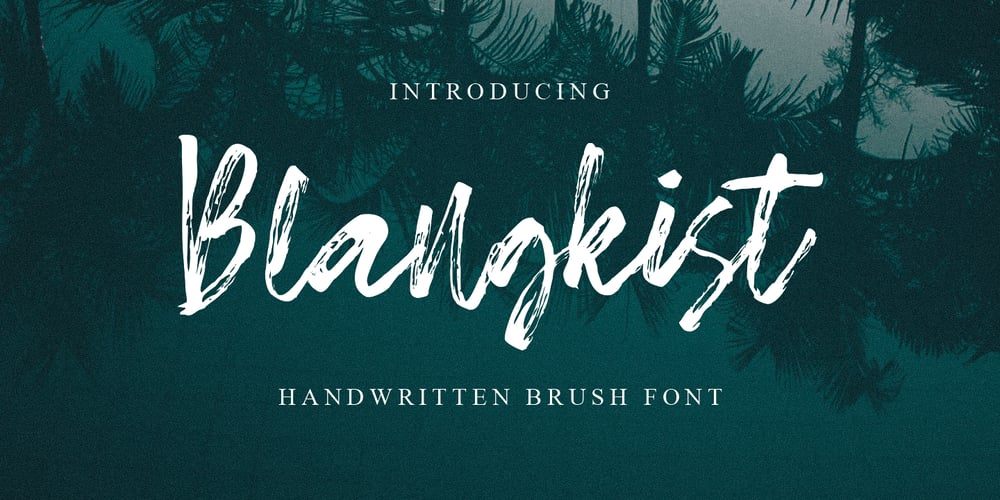
Blangkist Font Family was designed by Akmal Yusar and published by Picatype. Blangkist contains 1 styles and family package options. Blangkist Script is a handwritten script font, based on the expression of the signature style that flows freely, friendly and organic. hand painted with love. Blangkist Script contains ligatures and alternates characters in Open Type Features. Perfect for brand projects, logos, product packaging, posters, invitations, greeting cards, news, blogs, everything including personal charm. Blangkist Script is coded with PUA Unicode, which allows full access to all the extra characters without having special designing software. Mac users can use Font Book , and Windows users can use Character Map to view and copy any of the extra characters to paste into your favorite text editor/app. Thanks so much for looking and please let me know if you have any questions.